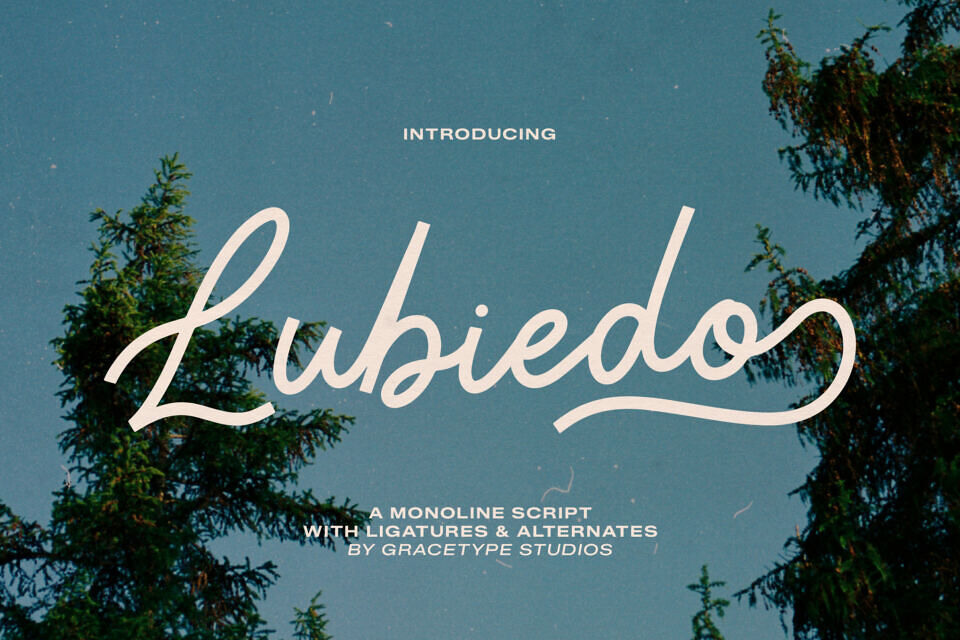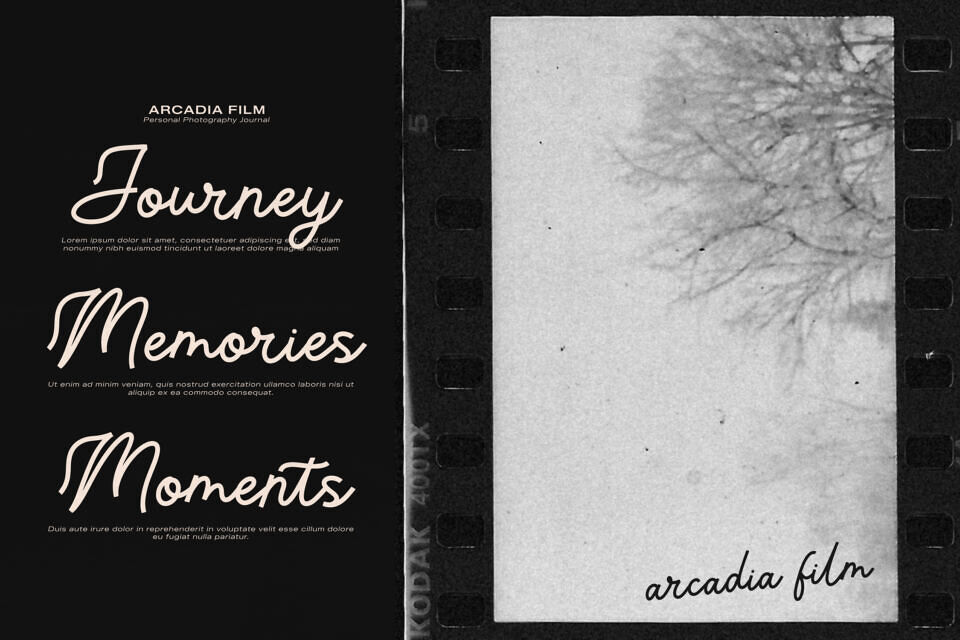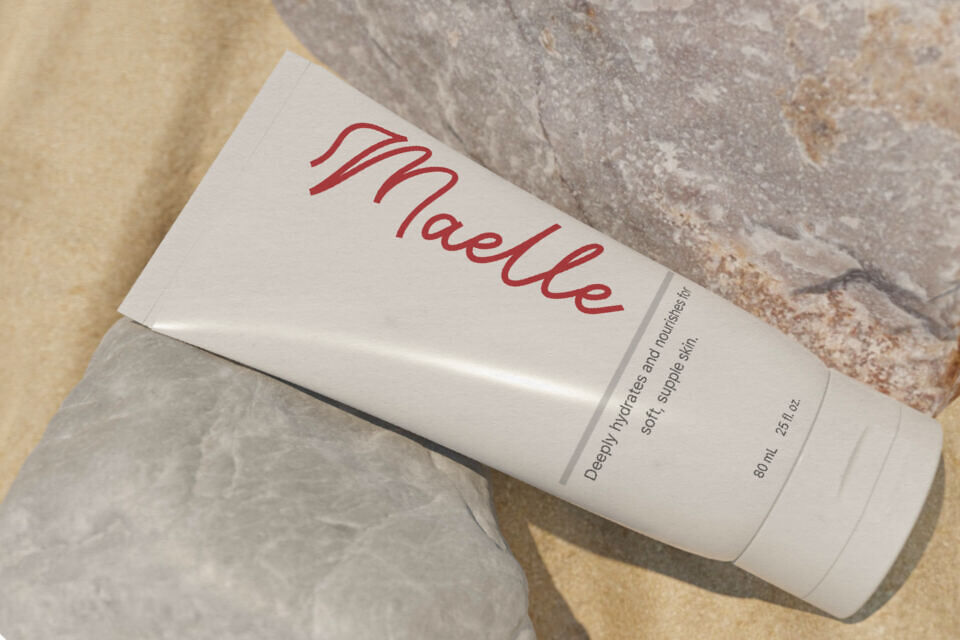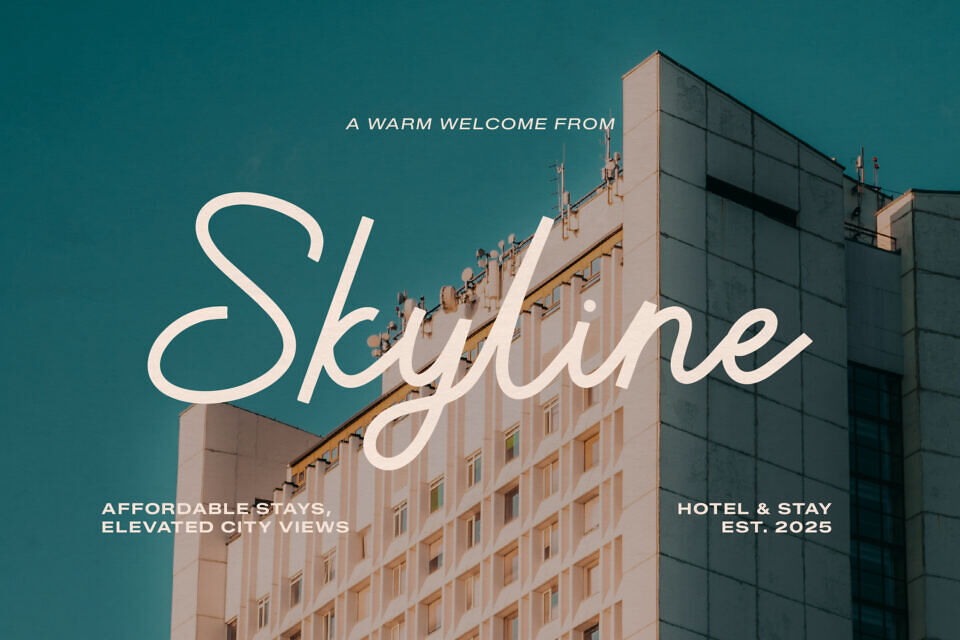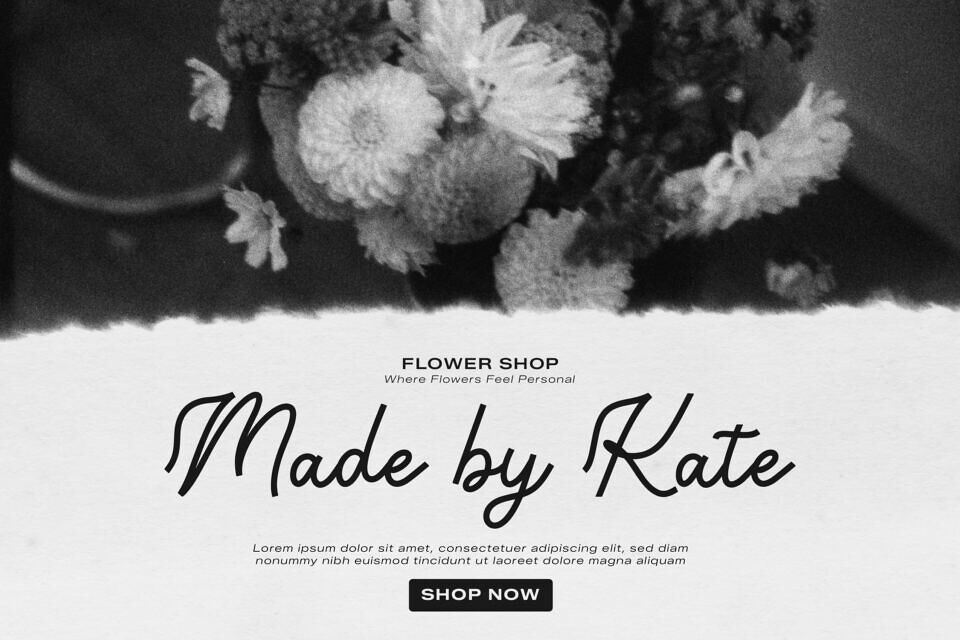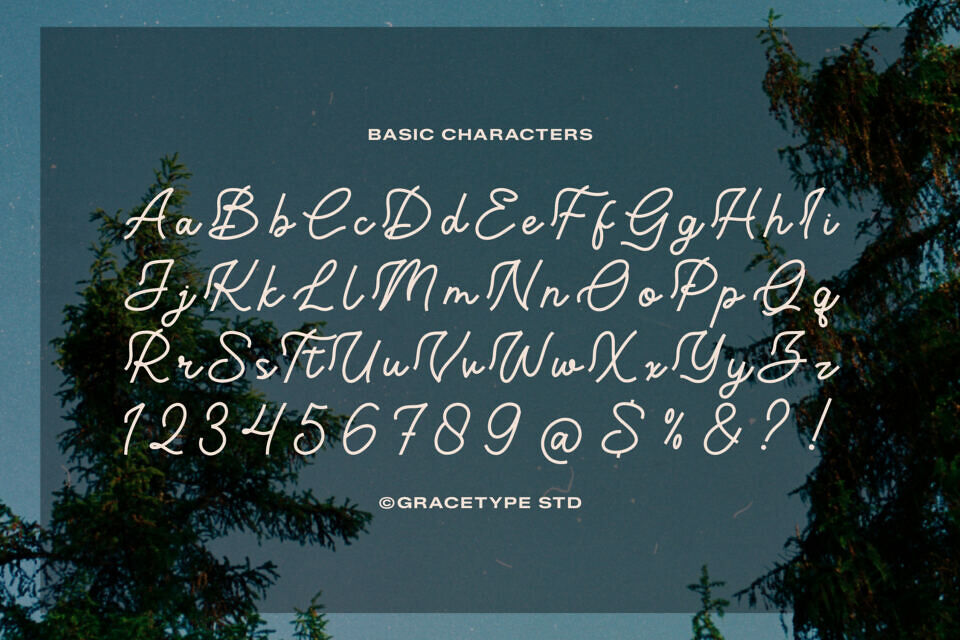
Lubiedo is an elegant and fluid monoline script font that captures a timeless, nostalgic charm. The typeface features consistent stroke weights and a graceful slanted axis that mimics smooth, continuous-point penmanship.
The design is enhanced by sophisticated ligatures and alternates, which create a rhythmic and finished look. This font is a beautiful choice for lifestyle photography watermarks, boutique brand identities, artisanal product packaging, and creative editorial titles.